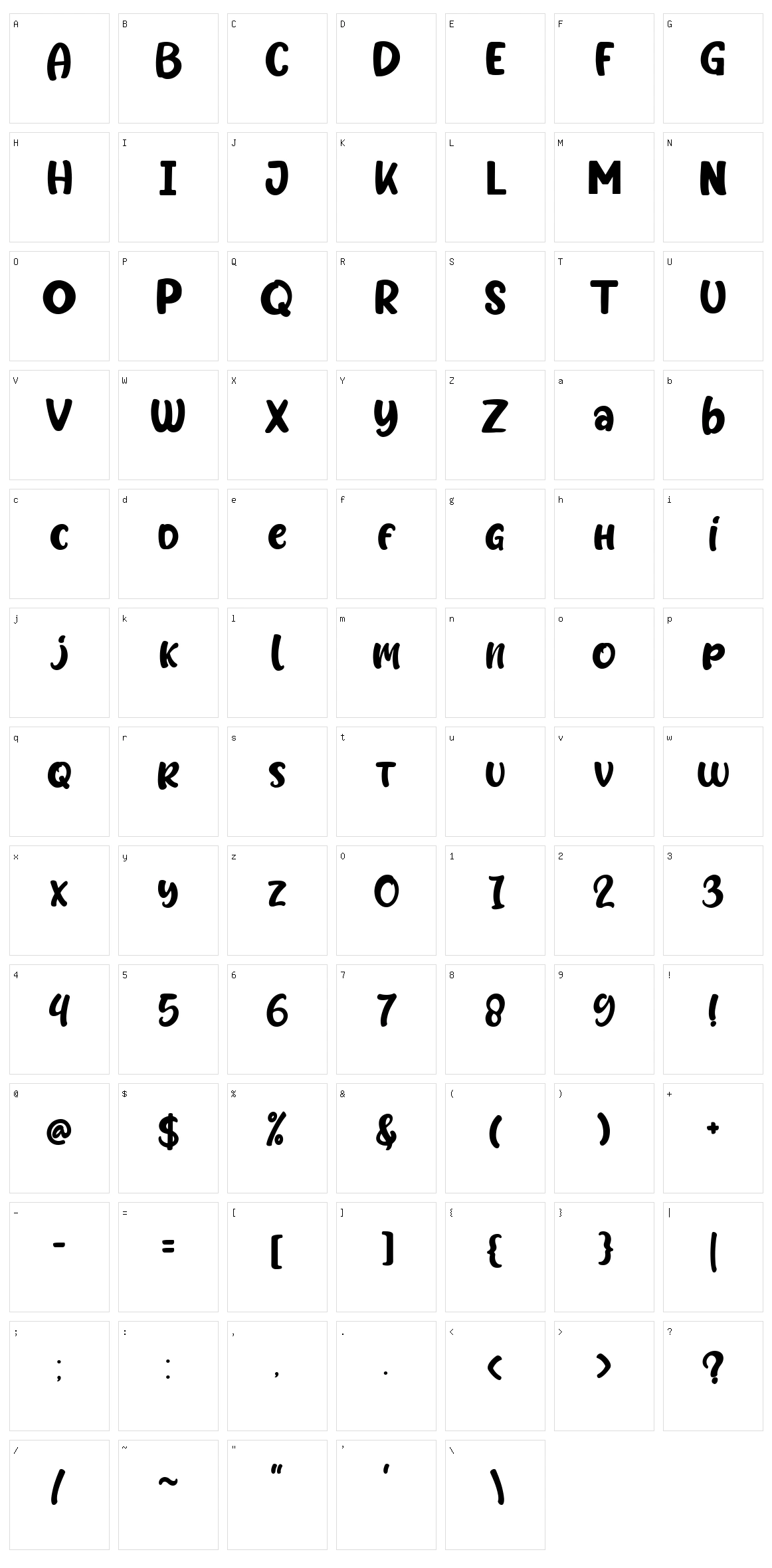
The free font Candyful is carefully designed by Typefactoryco, showcasing a thoughtful balance of creativity and usability and falls under the Cartoon font style. When you download the ZIP file, it contains only 232.45 KB of font files, making it lightweight and quick to download. Please review the license details below to understand permitted usage and distribution rights. If license information is not available, we recommend using this font for personal projects only or contacting the author directly for commercial usage permissions.